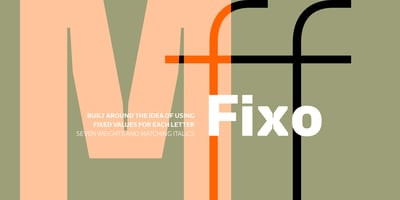
The Fixo Font is exceptionally versatile and shines in a wide array of applications where clean aesthetics, outstanding legibility, and a contemporary feel are paramount. Its often geometric or monospaced design, characterized by clear, open forms and precise spacing, makes it an ideal choice for UI/UX design, app interfaces, and digital dashboards. It's perfect for coding environments, technical documentation, and data display systems where precision and readability are critical. Furthermore, consider Fixo Font for tech company branding, innovative product design, and any creative project aiming to evoke a sense of modern precision, digital craftsmanship, and efficiency. Its structured character also lends itself well to information graphics and industrial design concepts.
What makes the Fixo Font so exciting is its ability to convey both functional efficiency and subtle design sophistication. It often features uniform character widths or a highly organized structure that sets it apart, making your text feel meticulously crafted and technologically advanced. This characteristic allows it to communicate a sense of reliability, clarity, and innovation, making your message resonate with an audience that values functionality and modern aesthetics. It's a font that doesn't just display text; it organizes information, adding a layer of controlled precision and contemporary appeal to any creative endeavor. Its distinctive aesthetic ensures your work will appear competent, orderly, and highly effective.
The Fixo Font family typically boasts a comprehensive range of weights to maximize its utility for various coding and design needs. You'll often find a wide selection, from Thin and Light to Regular, Medium, SemiBold, and Bold, usually accompanied by corresponding italic styles. More advanced versions might also include specific alternates for frequently confused characters (like '0' and 'O', 'l' and '1') and specialized coding ligatures to enhance clarity for programmers, providing unparalleled flexibility for developers and designers alike.